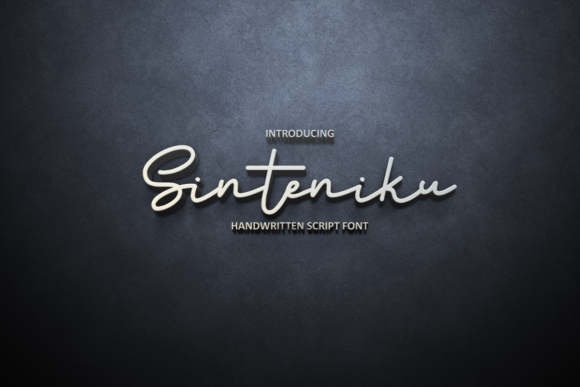
Introducing Sinteniku Font - A Refined Script Masterpiece for Your Creative Projects!
In a world of ordinary fonts, Sinteniku emerges as an extraordinary creation, an artistic marvel that captivates the soul. This script font, meticulously crafted by the talented almazstd24, is a testament to the boundless beauty of written words. Sinteniku's slender strokes, reminiscent of a calligrapher's delicate touch, exude both elegance and grace.
With Sinteniku at your disposal, you unlock a new realm of creative possibilities. Picture your designs adorned with Sinteniku's mesmerizing characters, each letter flowing seamlessly into the next, creating a visually captivating experience. From elegant wedding invitations that evoke a sense of timeless romance to eye-catching social media posts that demand attention, Sinteniku transforms the ordinary into the extraordinary.
Step into the realm of sophistication and make a statement with Sinteniku. Its versatility extends to a myriad of projects, from breathtaking logos that command respect to alluring branding elements that leave a lasting impression. Let Sinteniku be your creative muse, inspiring you to craft designs that capture hearts and minds.
But Sinteniku is more than just an aesthetically pleasing font. It's a powerful tool that empowers you to communicate with impact and create designs that resonate with your audience. Its thin, stylish letters demand attention, ensuring your message cuts through the noise and leaves an indelible mark.
Join the ranks of Fortune 500 companies and discerning creatives who have embraced Sinteniku's allure. Experience the transformative power of this exceptional script font and elevate your designs to new heights.
Let Sinteniku be your creative compass, guiding you towards design excellence. Its timeless beauty and captivating charm will captivate your audience, leaving them spellbound by your creations.